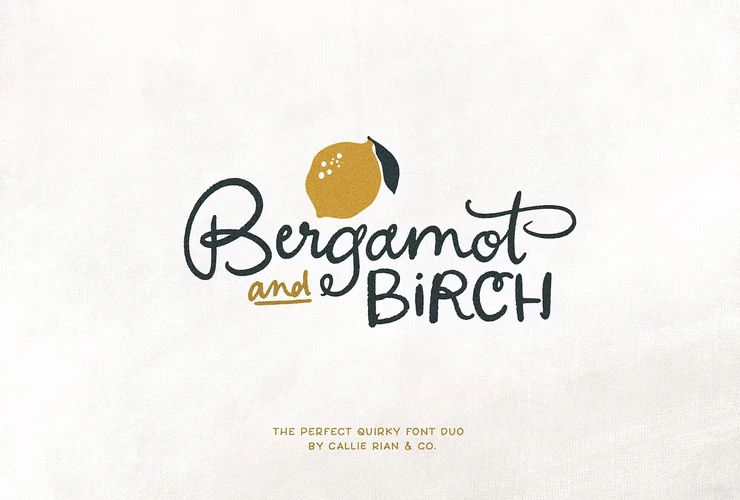
Bergamot & Birch Font Duo: A Delightful Blend of Organic Handwriting and Quirky Design
The Bergamot & Birch Font Duo is a charming combination of script and sans-serif fonts, designed to bring a touch of natural imperfection and whimsy to your projects. Created with a handcrafted aesthetic in mind, this font duo offers over 90 ligatures and alternates, along with language support and select catchwords, making it the perfect tool for creating engaging and visually appealing designs. From branding to greeting cards, quotes, packaging, and more, Bergamot & Birch is versatile enough to add personality and warmth to a wide range of creative applications.
What Makes Bergamot & Birch Stand Out?
Handcrafted Appeal: The organic handwriting style of Bergamot & Birch captures the charm of handmade designs, perfect for projects that need a personal touch. Its quirky imperfections give your work a playful and authentic feel.
Font Duo Flexibility: This duo includes a script and sans serif style, allowing for endless pairing possibilities. Whether you need a standout title or elegant body text, Bergamot & Birch has you covered.
Extensive Ligatures and Alternates: With over 90 ligatures and alternates, you can customize your text to achieve a unique look that feels spontaneous and dynamic. The additional catchwords included in both the script and sans serif styles further enhance your creativity.
Wide Language Support: Bergamot & Birch supports a broad range of languages, making it ideal for multilingual projects or global branding.
Ideal Uses for Bergamot & Birch
Branding and Logos: The playful yet sophisticated nature of this font duo makes it ideal for branding projects that require both versatility and charm.
Greeting Cards and Invitations: Whether for weddings, birthdays, or special occasions, Bergamot & Birch adds a warm and welcoming touch to invitations and greeting cards.
Quotes and Social Media Graphics: Create shareable and eye-catching quote designs with the quirky and organic vibe of Bergamot & Birch.
Packaging and Product Labels: For handmade or artisanal products, this font duo adds a crafted, personalized feel that resonates with customers seeking authenticity.
Editorial and Book Design: The balance between the sans serif and script styles ensures readability while maintaining a unique aesthetic for book covers, chapter headings, and more.
It’s worth noting that Bergamot & Birch is designed with a textured, non-smooth finish, which may not be compatible with cutting machines like Cricut or Silhouette. Be sure to understand how to install and use custom fonts before purchasing.
Explore the Bergamot & Birch Font Duo and unlock a world of creative possibilities that blend the quirky with the elegant, all while staying true to your unique design vision.